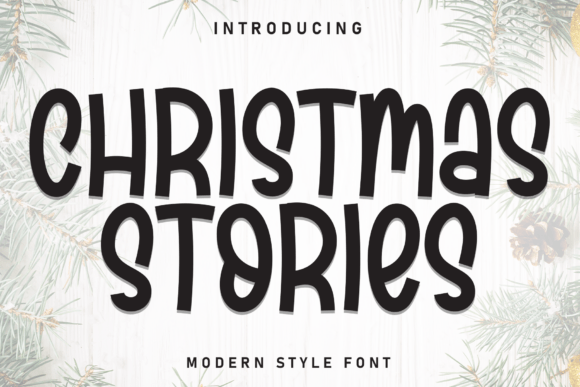
Christmas Stories Font: A Delightfully Cheerful and Endearing Handwritten Display Font
Are you looking for a font that can add a dash of charm and playfulness to your designs? Look no further than the Christmas Stories Font, a delightfully cheerful and endearing handwritten display font that’s perfect for a variety of design projects. Infused with a sweet and friendly aura, this font brings an element of fun to every word, making it the quintessential tool to breathe life and personality into your typography.
What is Christmas Stories Font?
Christmas Stories Font is a handwritten display font that’s designed to bring a touch of whimsy and playfulness to your designs. With its sweet and friendly aura, this font is perfect for creating unique and eye-catching designs that stand out from the crowd. Whether you’re crafting heartfelt wedding invitations, creating unique cards, or designing anything that requires a touch of personality, Christmas Stories Font is the perfect choice.
Key Features of Christmas Stories Font
So, what makes Christmas Stories Font so special? Here are some of its key features:
- Handwritten display font: Christmas Stories Font is a handwritten display font that’s designed to bring a personal touch to your designs.
- Sweet and friendly aura: This font has a sweet and friendly aura that makes it perfect for creating designs that are both fun and engaging.
- Perfect for whimsical designs: Whether you’re creating wedding invitations, cards, or other designs that require a touch of whimsy, Christmas Stories Font is the perfect choice.
- Easy to read: Despite its playful nature, Christmas Stories Font is easy to read, making it perfect for designs that require a clear and concise message.
Uses of Christmas Stories Font
So, what can you use Christmas Stories Font for? The possibilities are endless! Here are some ideas to get you started:
- Wedding invitations: Add a touch of whimsy and romance to your wedding invitations with Christmas Stories Font.
- Cards: Create unique and eye-catching cards for special occasions like birthdays, holidays, and anniversaries.
- Social media graphics: Use Christmas Stories Font to create fun and engaging social media graphics that stand out from the crowd.
- Logos and branding: Use Christmas Stories Font to create a unique and memorable logo or brand identity.
Benefits of Using Christmas Stories Font
So, why should you use Christmas Stories Font for your design projects? Here are some benefits:
- Adds a touch of personality: Christmas Stories Font brings a touch of personality and whimsy to your designs, making them stand out from the crowd.
- Versatile: Christmas Stories Font can be used for a variety of design projects, from wedding invitations to social media graphics.
- High-quality: This font is high-quality and designed to look great on any device or platform.
Tips for Using Christmas Stories Font
Here are some tips for using Christmas Stories Font:
- Use it sparingly: While Christmas Stories Font is fun and playful, it can be overwhelming if used too much. Use it sparingly to add a touch of whimsy to your designs.
- Pair it with other fonts: Christmas Stories Font pairs well with other fonts, so don’t be afraid to experiment with different combinations.
- Experiment with colors: This font looks great in a variety of colors, so experiment with different colors to find the perfect look for your design.
In conclusion, Christmas Stories Font is a delightfully cheerful and endearing handwritten display font that’s perfect for adding a dash of charm and playfulness to your designs. With its sweet and friendly aura, this font brings an element of fun to every word, making it the quintessential tool to breathe life and personality into your typography. Whether you’re crafting heartfelt wedding invitations, creating unique cards, or designing anything that requires a touch of whimsy, Christmas Stories Font is the perfect choice.
- What is Christmas Stories Font?: Christmas Stories Font is a handwritten display font that’s designed to bring a touch of whimsy and playfulness to your designs.